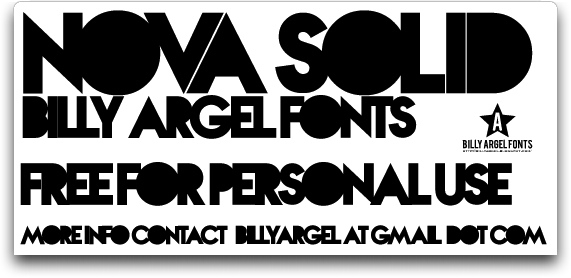
Nova Solid is a captivating font designed by Billy Argel. Its bold, angular letterforms command attention, evoking a sense of strength and modern sophistication. The sharp edges and distinct corners create a striking visual impact, making this font particularly well-suited for display use in branding, headlines, and eye-catching design elements.
The font's solid, unwavering presence lends itself to a wide range of applications, from sleek editorial layouts to impactful signage and packaging design. Its versatility allows designers to leverage Nova Solid's powerful aesthetic to elevate their projects with a touch of industrial-inspired flair.